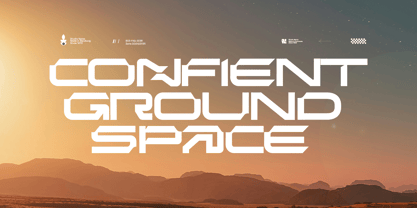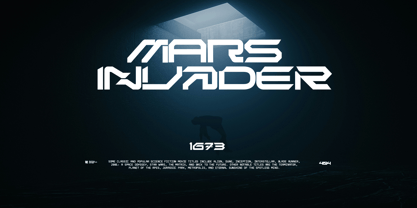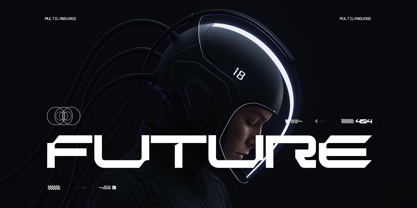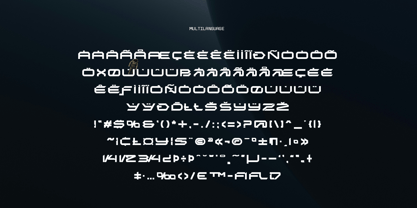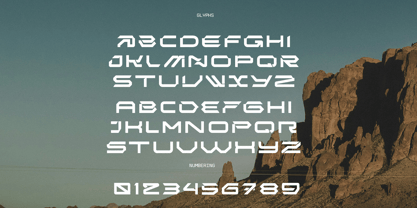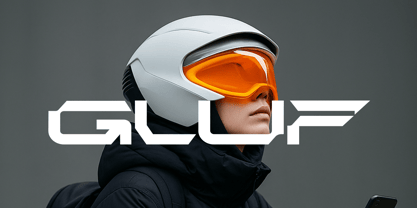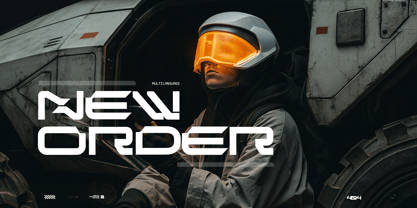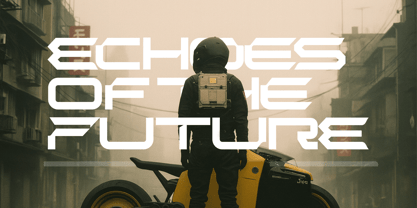
Fd Gluf
by Fortunes Co
The Fd Gluf Font Family was designed by Ramandhani Nugraha and published by Fortunes Co. Fd Gluf contains 1 styles. More about this family
Gluf is a cutting-edge display font distinguished by its bold precision and minimalist aesthetics. Its concise, memorable name encapsulates the font's character: clean, sharp, and forward-thinking. Each curve and line is meticulously crafted to balance industrial strength with modern elegance, offering a versatile solution for various creative projects, from branding to digital interfaces and beyond.
Designers: Ramandhani Nugraha
Foundry: Fortunes Co